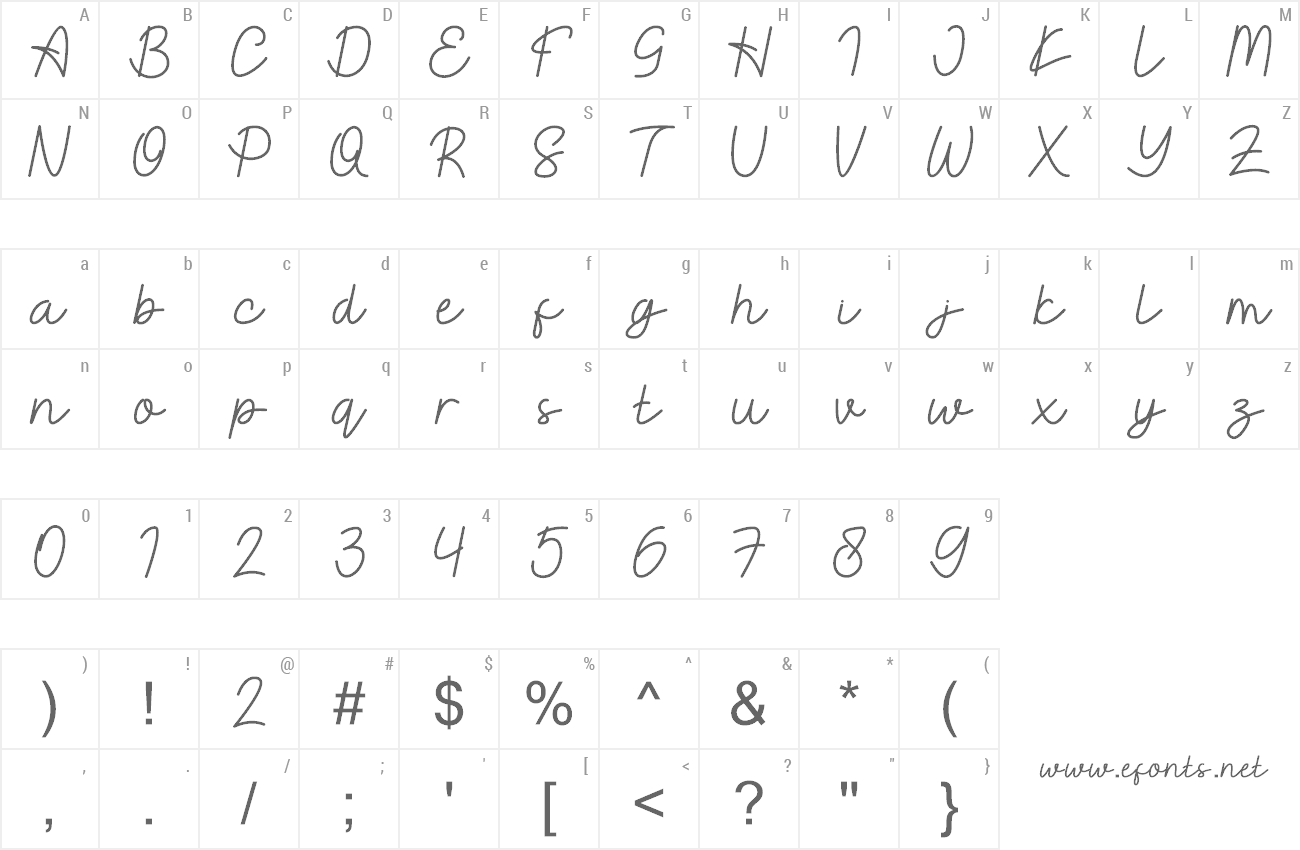
Preview and download East Blue Font. Created by sixtwenty studio in Script Handwritten styles with Free for personal use license.
FULL VERSION HERE: https://www.creativefabrica.com/product/east-blue/ East Blue - monoline script that is made with a semi-signature style that looks modern and luxurious. East Blue - will be perfect for magazines, business cards, invitations, and all designs that require a signature, modern and luxurious elements. What includes: - EastBlue OTF - Ligature - Works on PC & Mac - Simple installation - Accessible in Adobe Illustrator, Adobe Photoshop, Adobe InDesign, also works in Microsoft Word. - Can be accessed completely without additional design software. Thank you for your download! Hope you enjoy our font! ~ Sixtwenty Studio ~ |